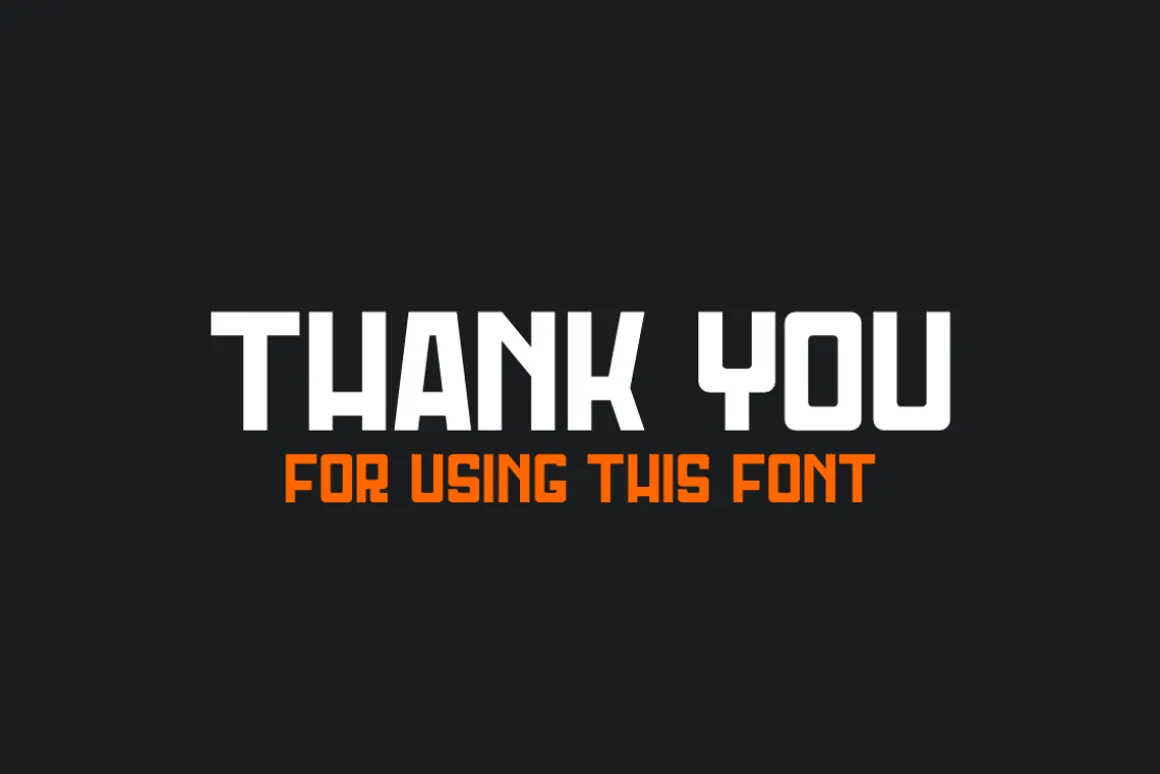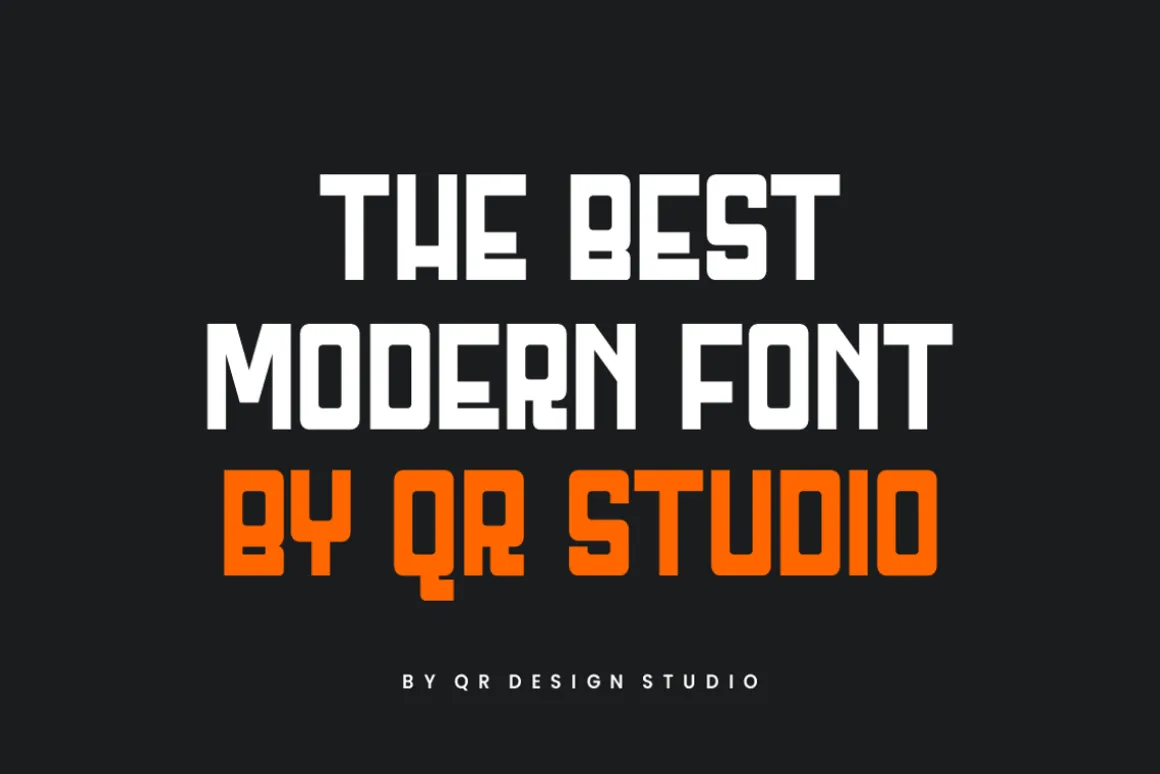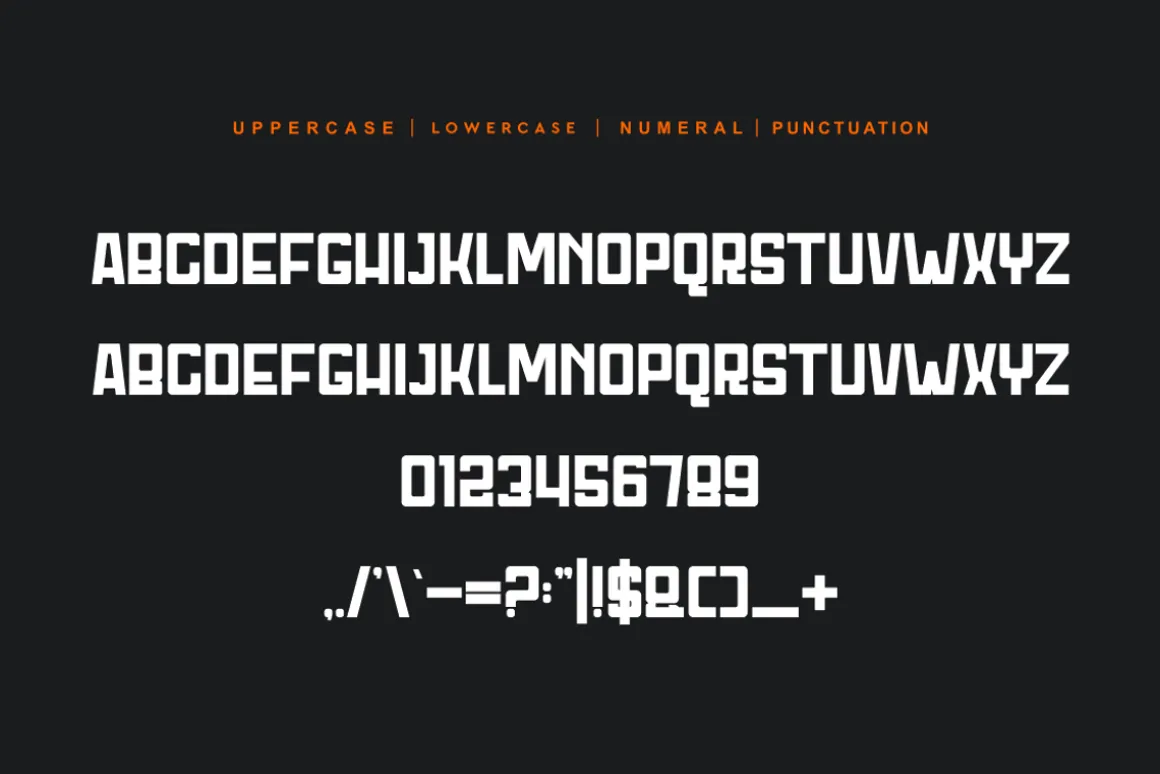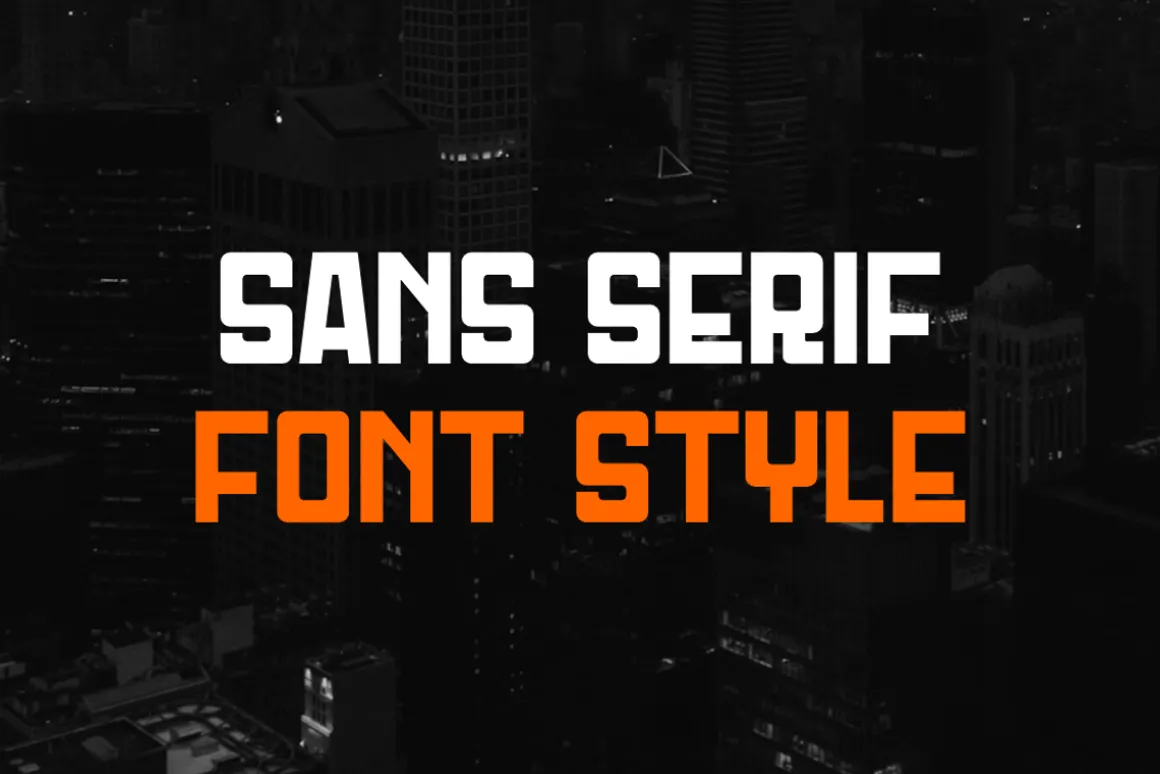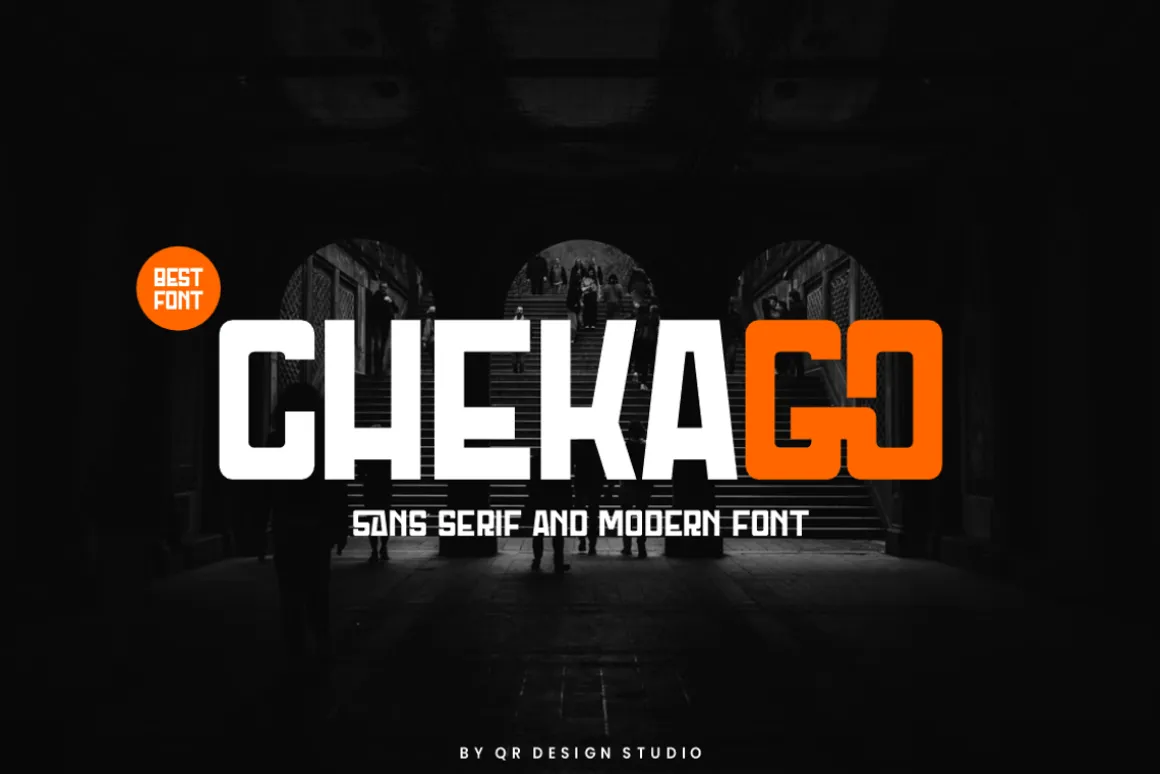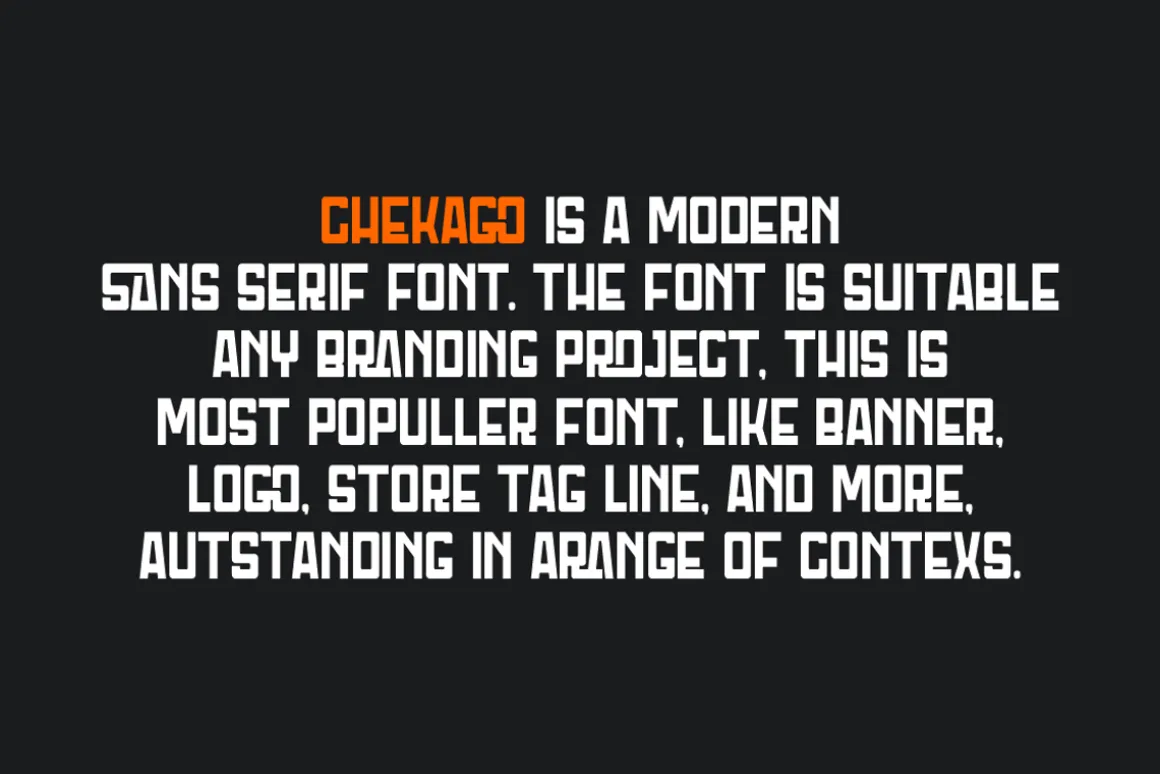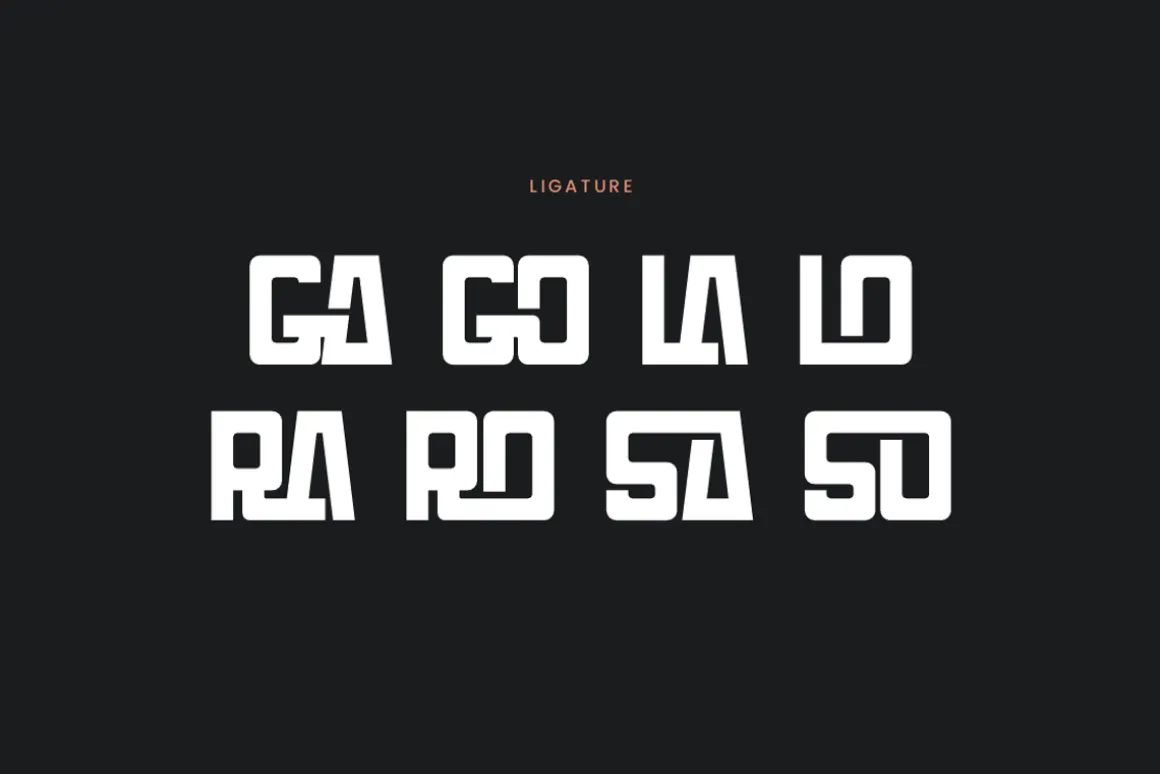
Chekago Font is a bold and authentic display font.The font is suitable for any branding project like poster, logo, sport, and many more.Outstanding in a wide range of contexts.